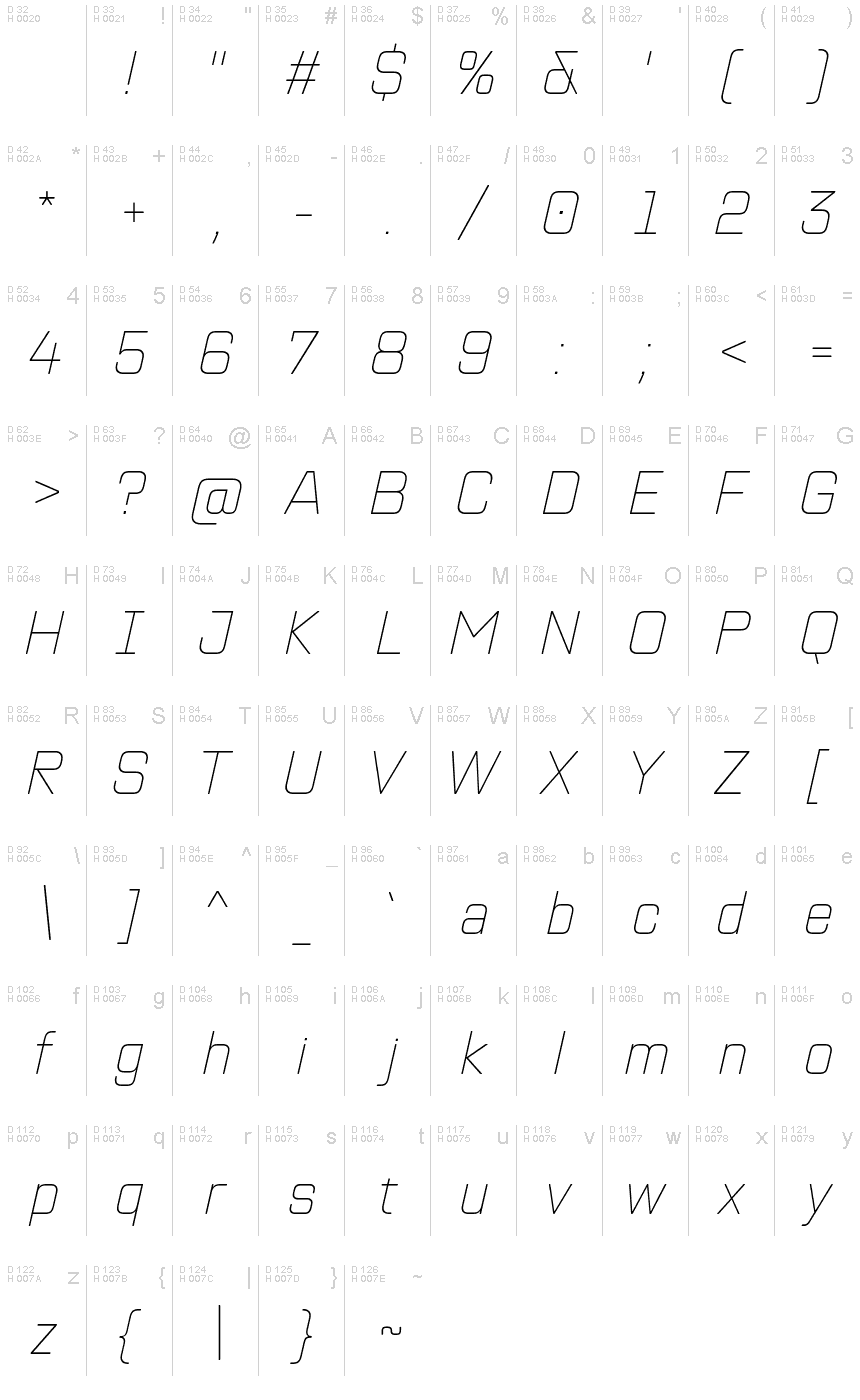
TT Lakes Neue Trial Thin Italic
TT Lakes Neue Thin Italic is a modern sans serif font designed by TypeType Foundry. Its ultra-light weight and clean lines make it perfect for projects that require a sleek, minimalistic look. Use it for branding materials, websites, or digital presentations where you want to convey sophistication and elegance. The thin italic style adds a touch of personality to your designs without being too bold or distracting. Whether you're creating a professional portfolio or designing an e-commerce site, TT Lakes Neue Thin Italic is the perfect font choice for any project that demands refinement and simplicity.